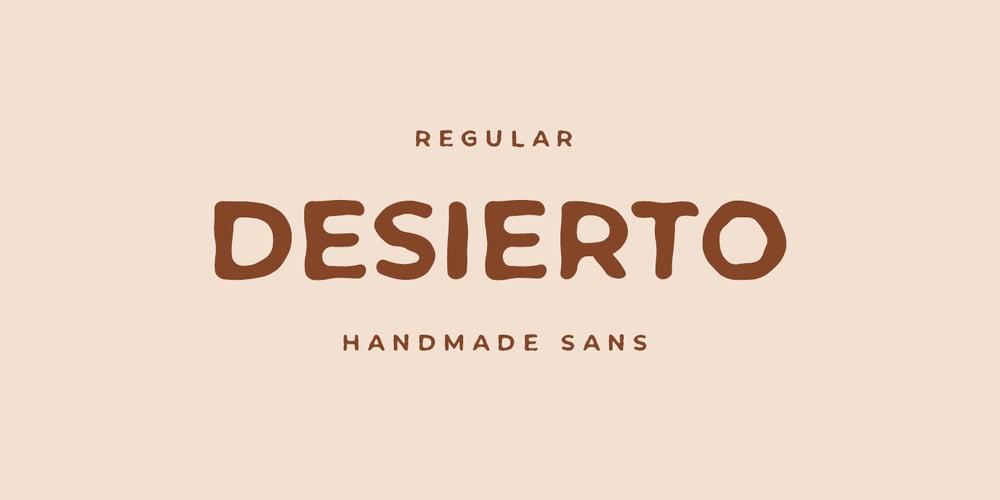
Desierto Font Family was designed by Dmitrii Chirkov and published by Supfonts. Desierto contains 1 styles and family package options. Desierto is an elegant, handwritten sans serif. This is a perfect for any projectFont Features:- Language support: All European languages- Multilingual Characters- AÁĂÂÄÀĀĄÅÃÆBCĆČÇĊDÐĎĐEÉĚÊËĖÈĒĘẼFGĞĢĠḠHĦIIJÍÎÏİÌĪĮĨJKĶLĹĽĻŁMNŃŇŅÑ OÓÔÖÒŐŌØÕŒPÞQRŔŘŖSŚŠŞȘẞTŤŢȚUÚÛÜÙŰŪŲŮŨVWẂŴẄẀXYÝŶŸỲỸZŹŽŻ Thanks so much for checking out my shop, and please get in touch if you have any questions! Don’t forget to subscribe so you don’t miss out on the new awesome fonts